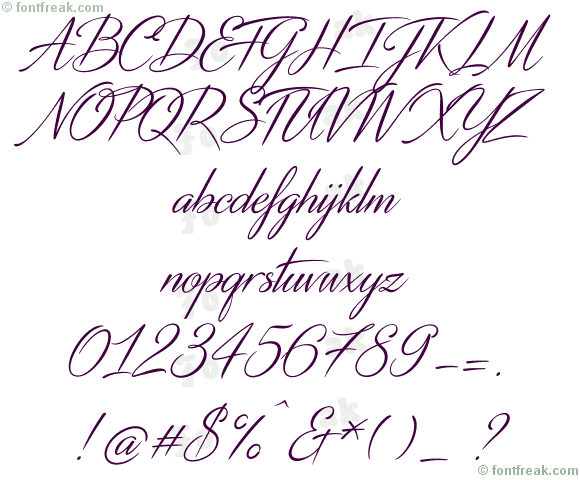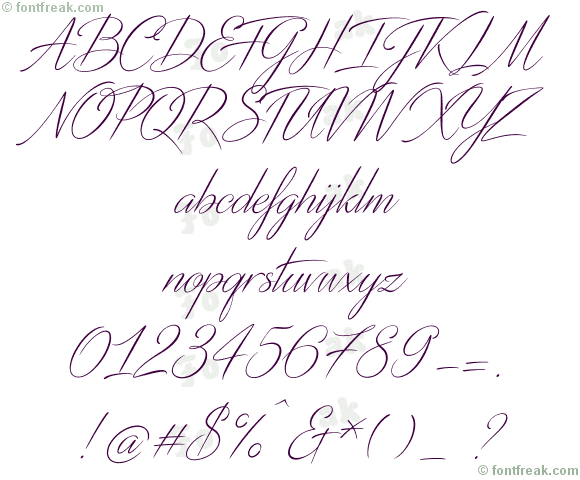
DistantStroke
About DistantStroke
DistantStroke, designed by Youssef Habchi, is an elegant script font that exudes sophistication and charm. This font stands out in the realm of handwritten typefaces, featuring smooth, flowing strokes that mimic a natural writing style. The medium stroke weight offers a pleasing balance between boldness and delicacy, while the graceful curves add a touch of artistic flair. The spacing is thoughtfully crafted, ensuring readability without sacrificing style, making DistantStroke an ideal choice for various applications.
This versatile font shines in several specific use cases. It is perfect for wedding invitations, where its romantic aesthetic can beautifully convey heartfelt sentiments. Additionally, DistantStroke is an excellent choice for upscale restaurant menus, offering a refined touch that enhances the dining experience. Graphic designers can also utilize this font for branding projects, ensuring that logos and promotional materials resonate with a sense of elegance. The font is suitable for creative social media posts, helping content creators capture attention with its distinctive style. Lastly, DistantStroke can elevate event flyers, providing a unique visual appeal that draws interest from potential attendees.
In conclusion, DistantStroke font free download offers a unique blend of sophistication and versatility, making it a standout option for anyone looking to add a touch of elegance to their designs. Its flowing lines and artistic character set it apart in the crowded world of typography, ensuring that any project featuring this font will leave a lasting impression.